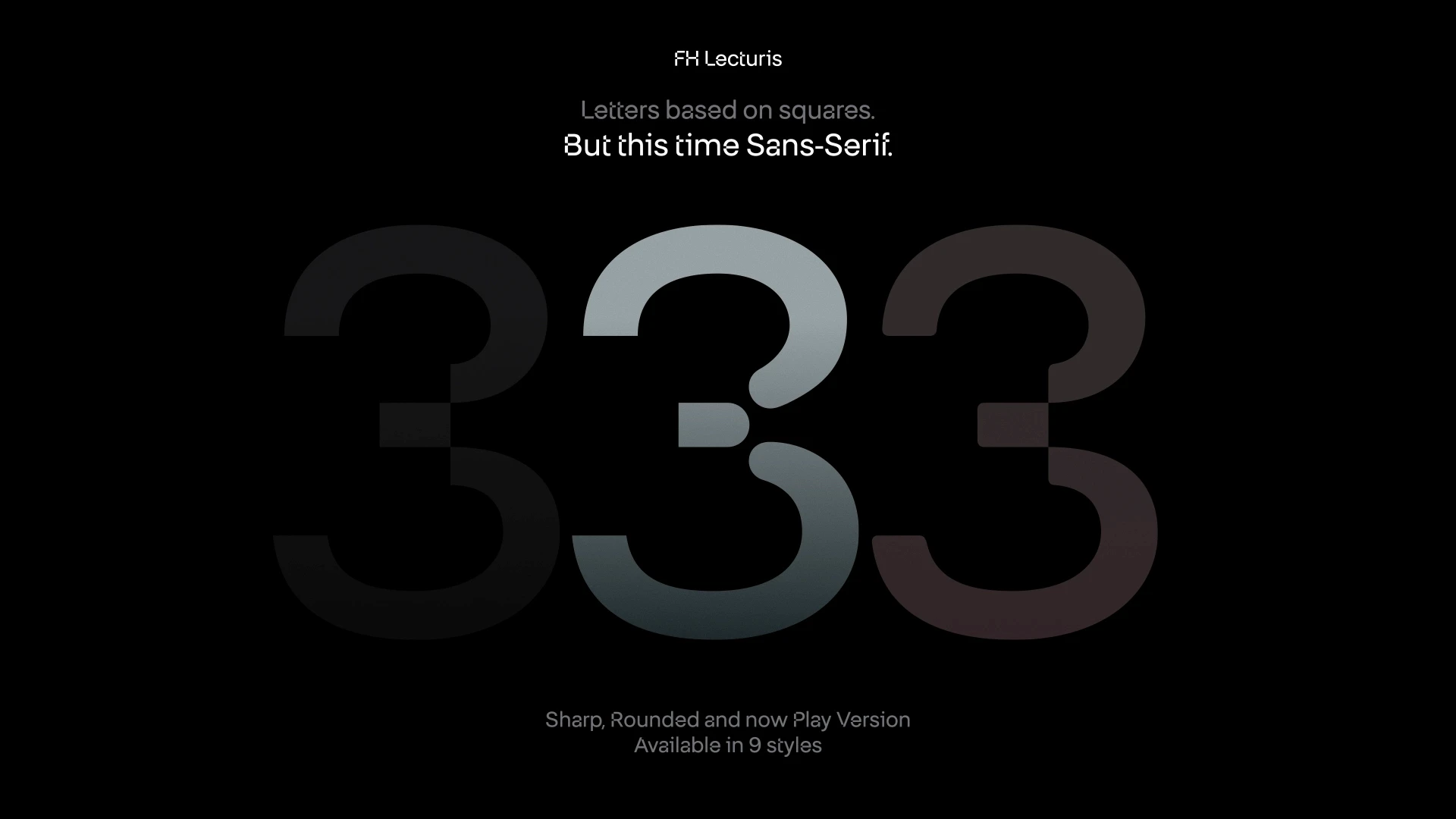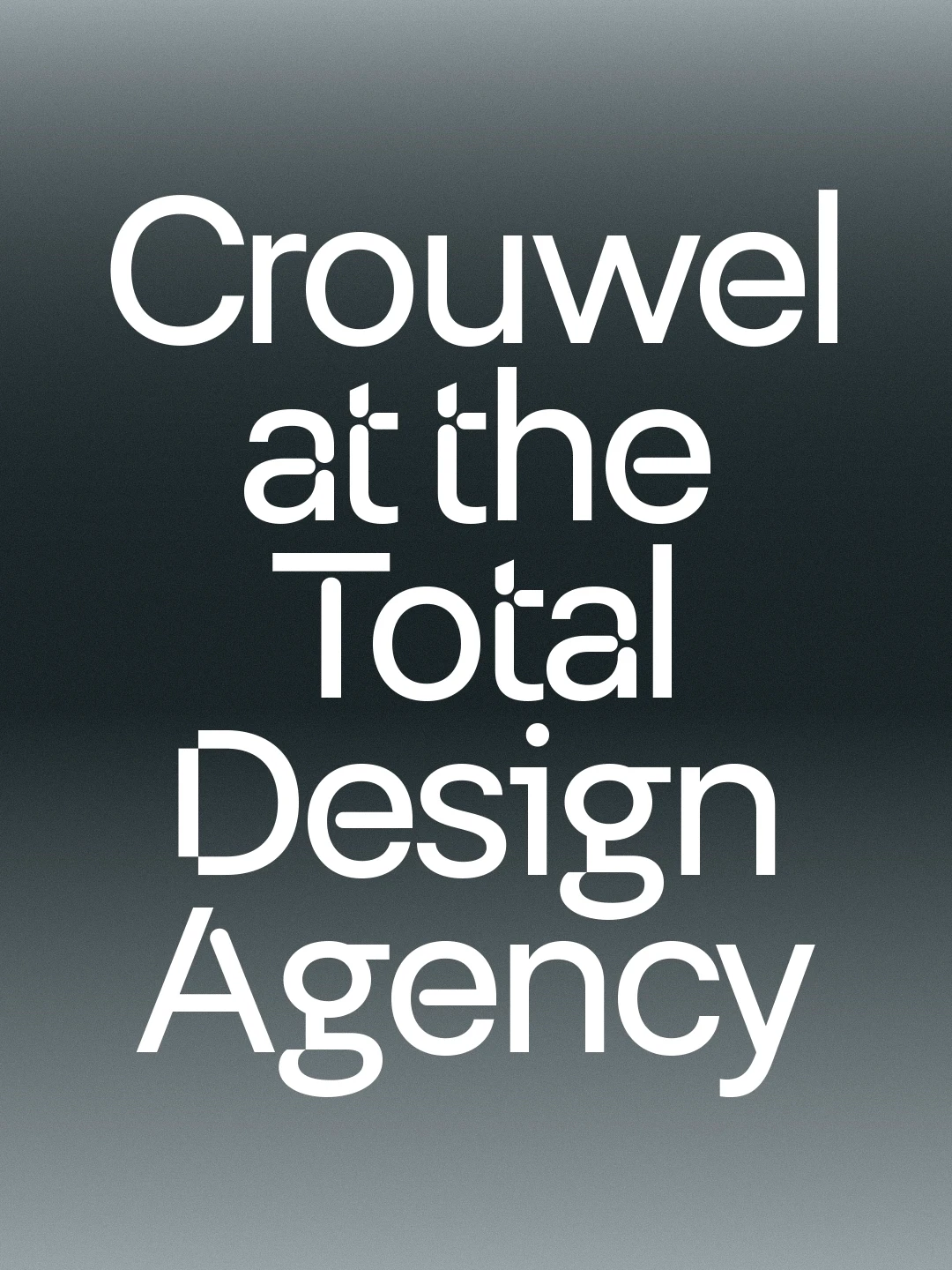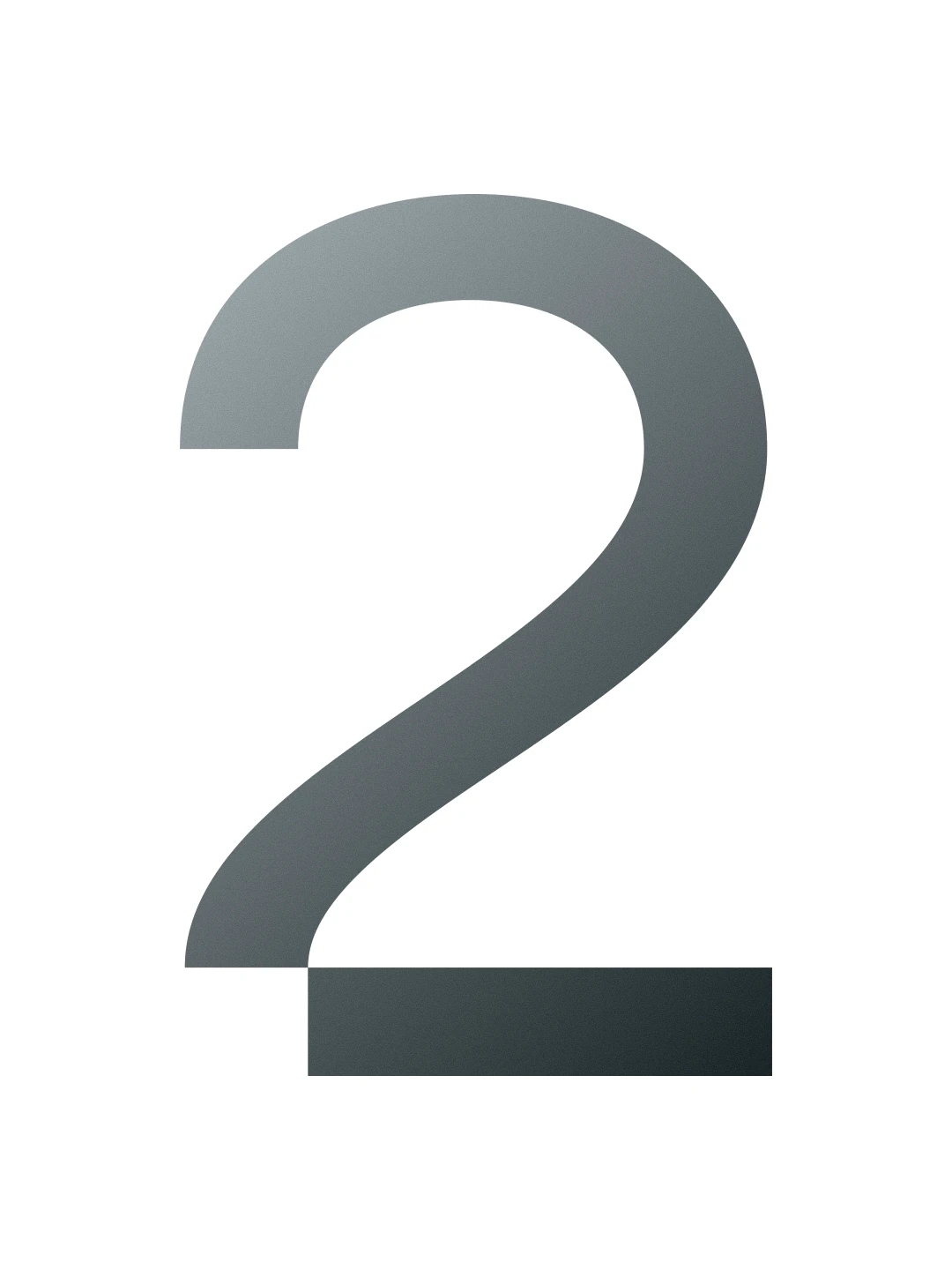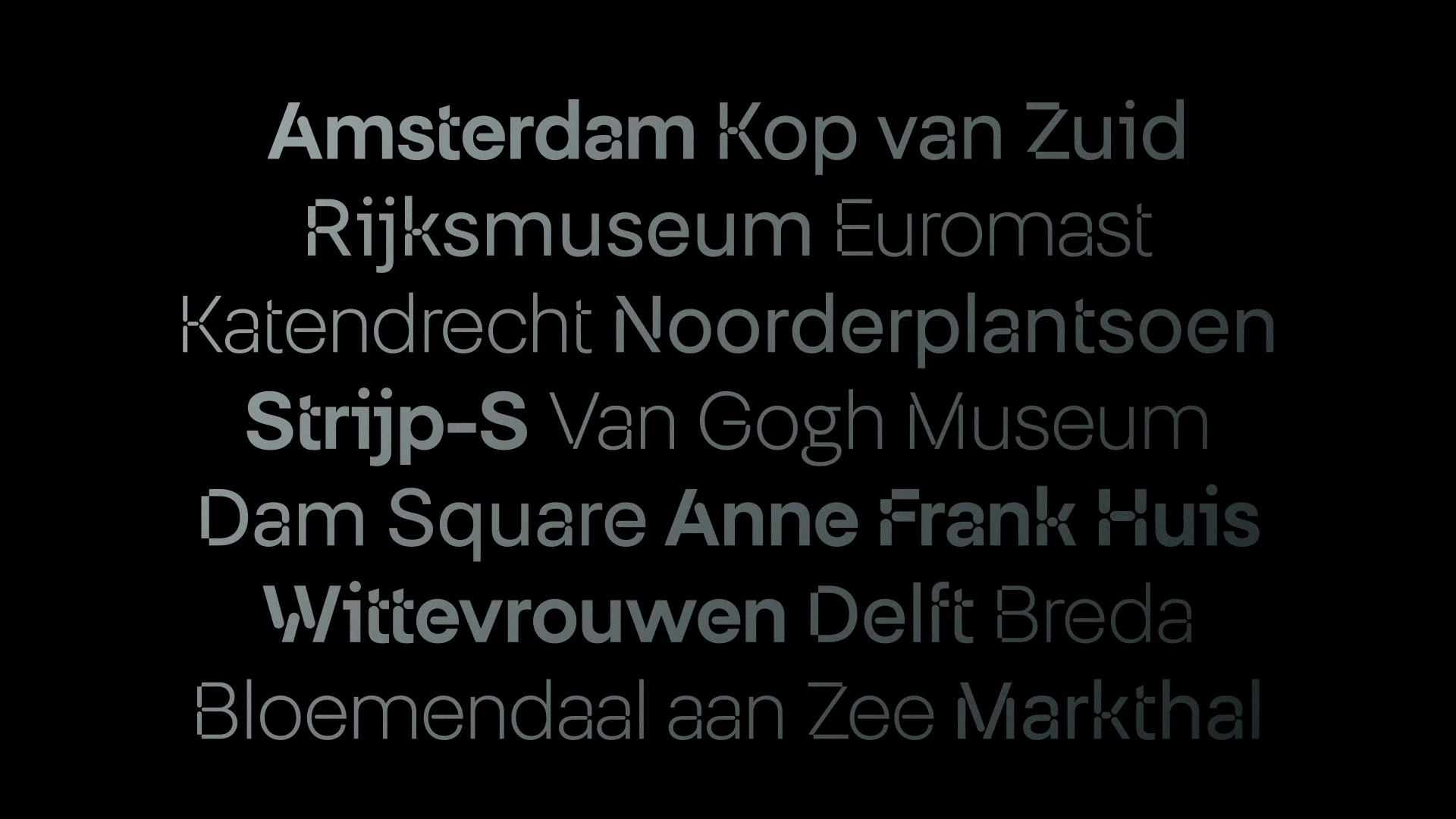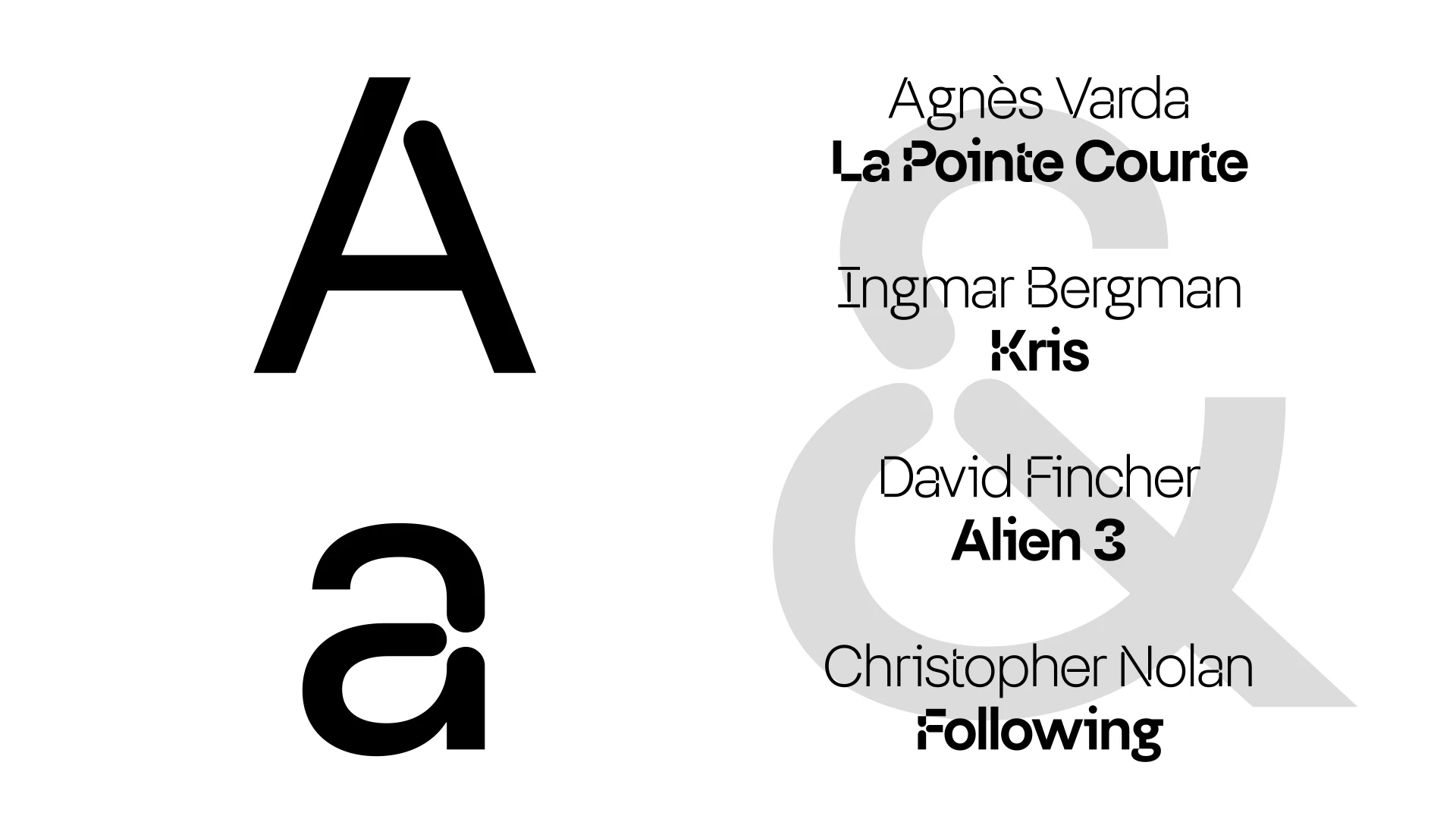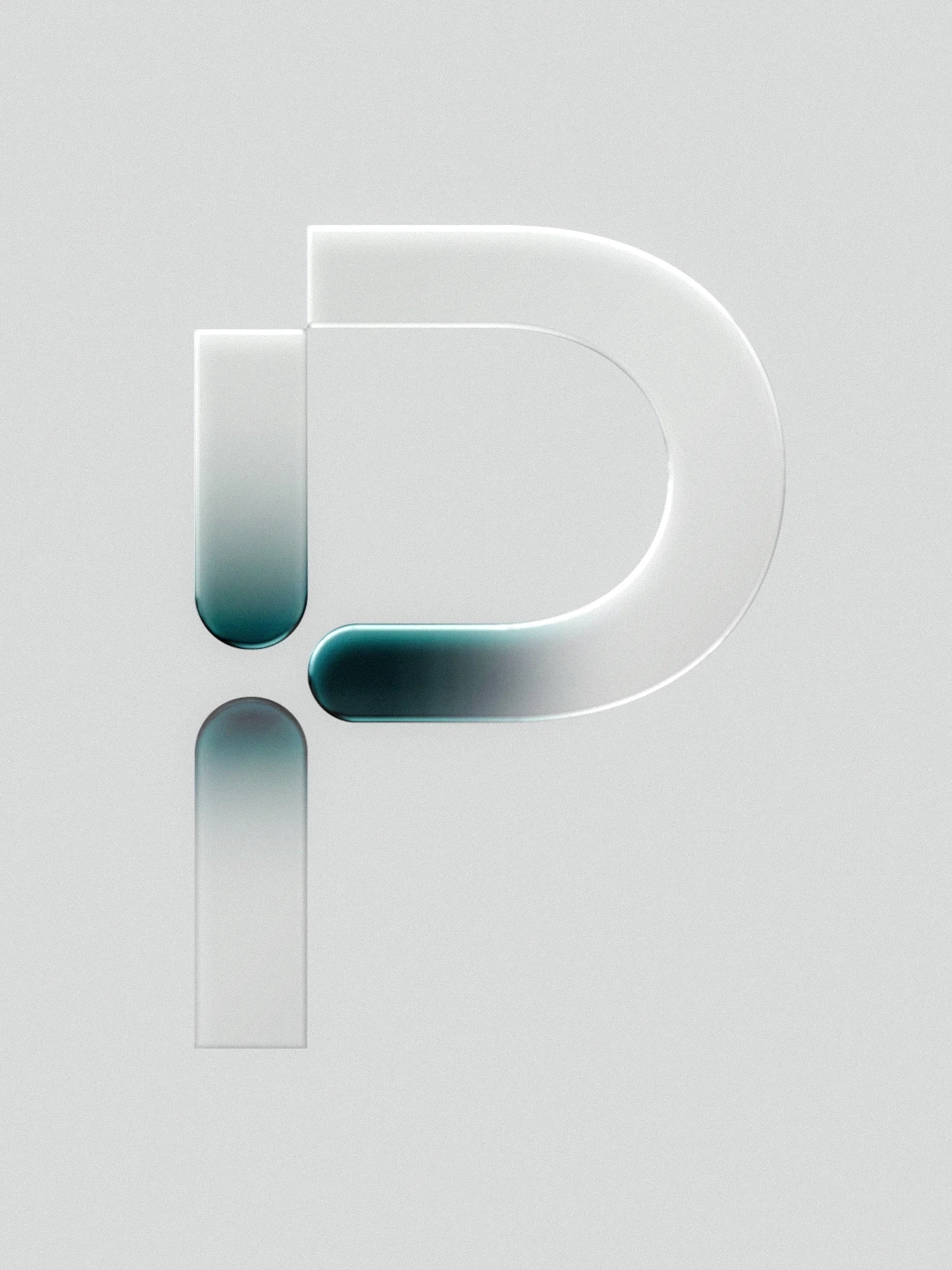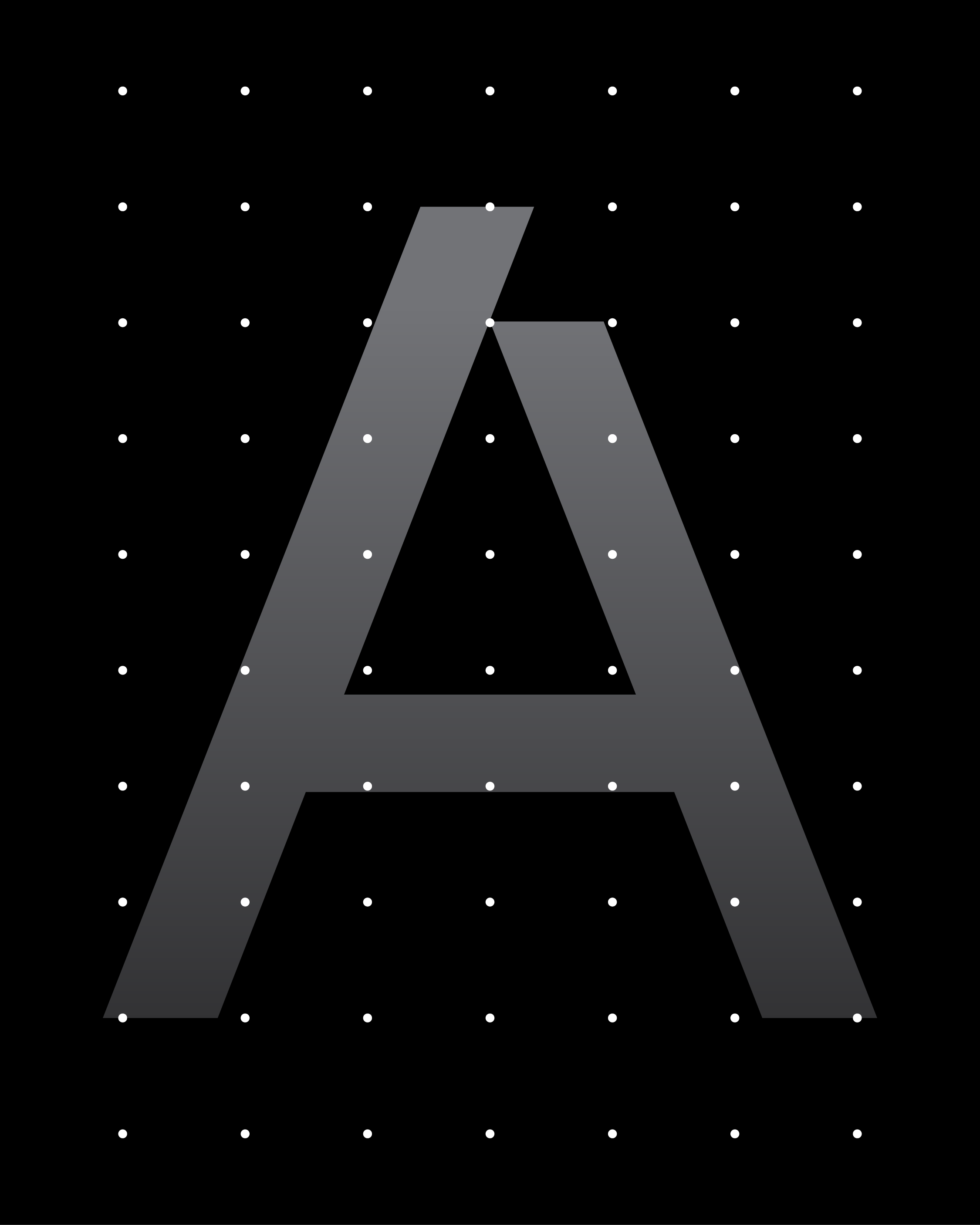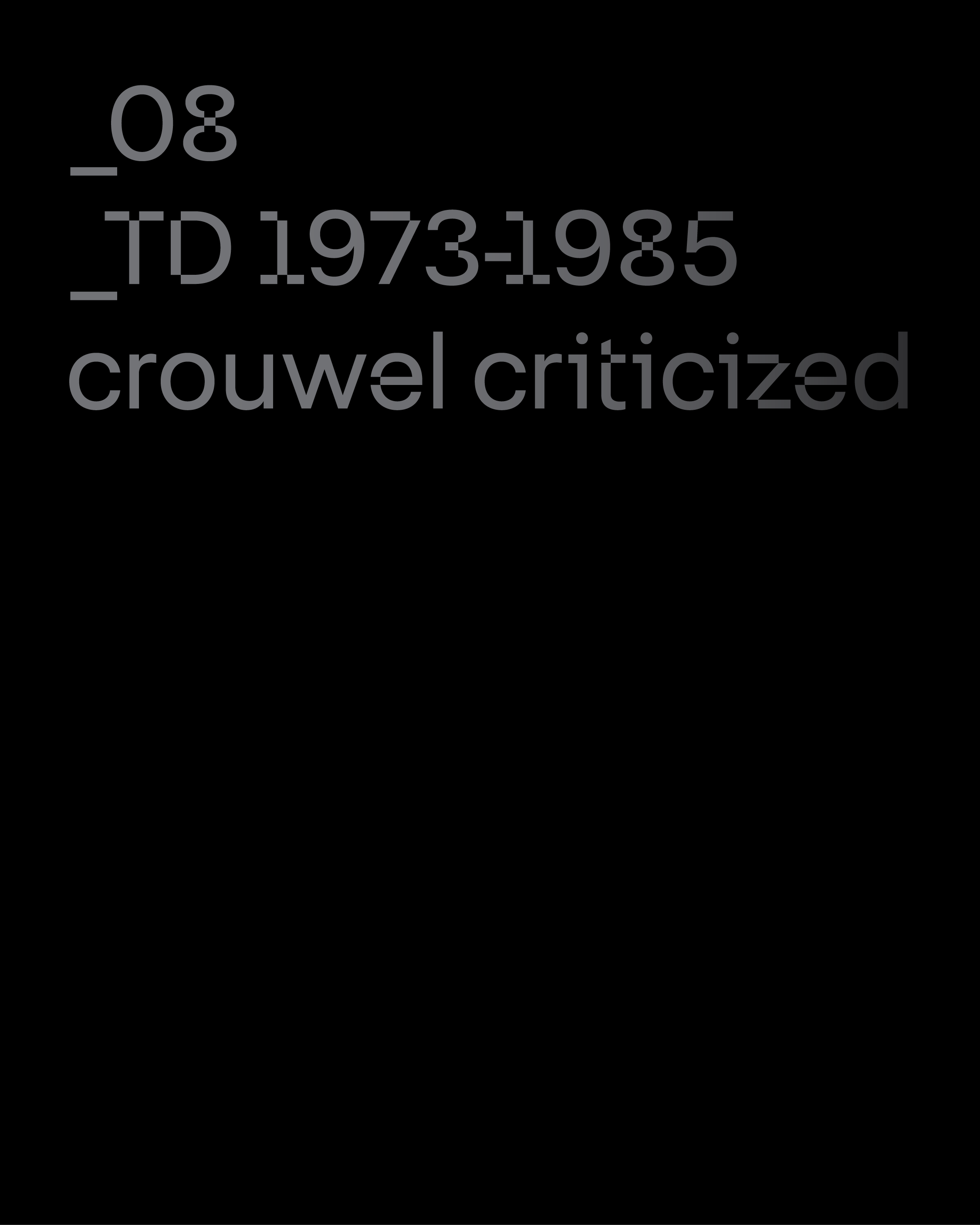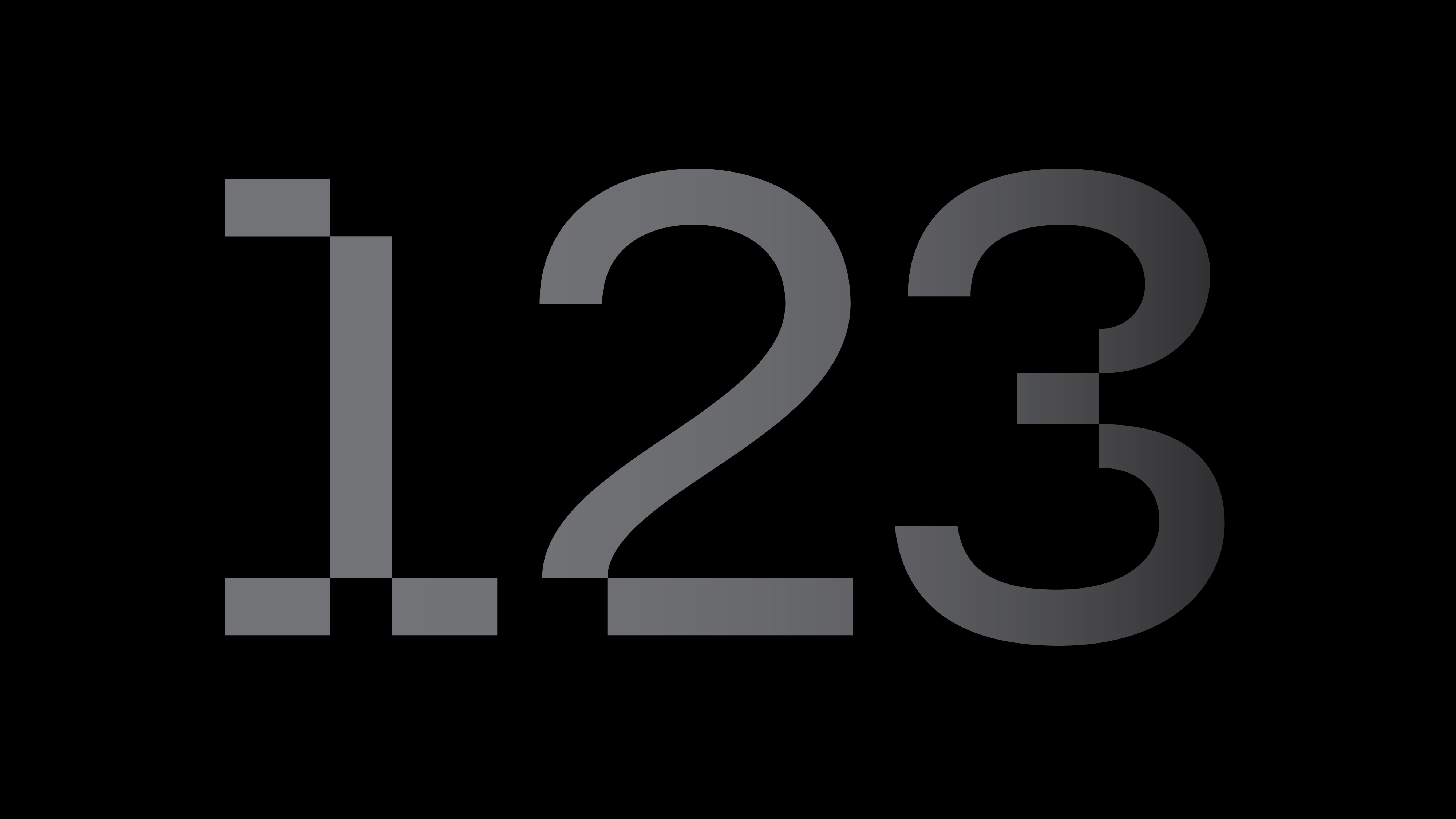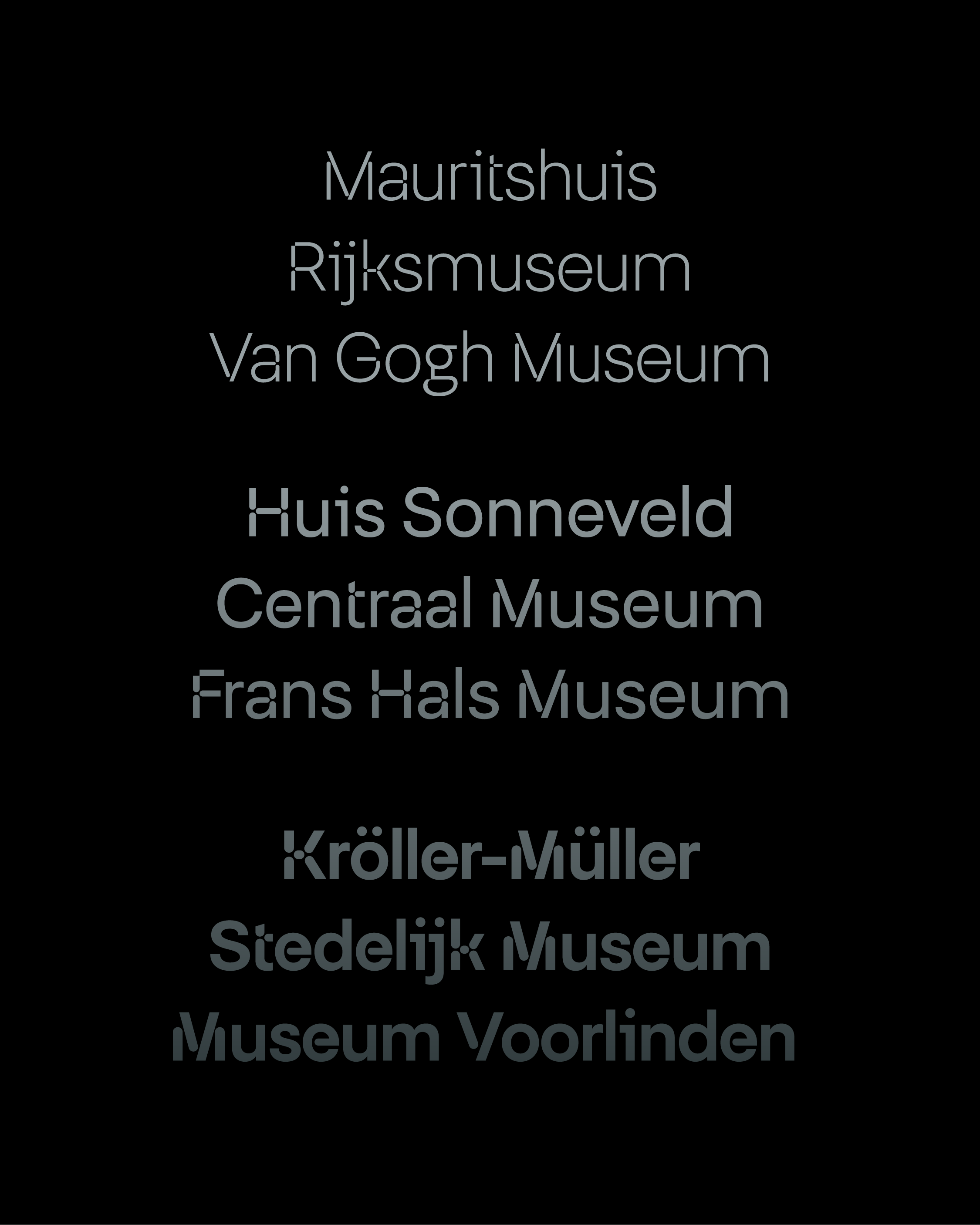
FH Lecturis is a neo-grotesk inspired by the rational grid systems of Wim Crouwel and the structural clarity of Akzidenz Grotesk. Drawn with modular precision, it softens its rigid core through rounded terminals and subtle optical adjustments. The result is a typeface that balances mechanical order with humanist warmth. Designed for editorial systems, institutional identities, and visual clarity at scale, FH Lecturis is where logic meets nuance.
Classification: Sans-serif / Modular Stencil
Wim Crouwel believed in structure, not decoration. For him, design was never about ornament or personal flourish, but about building clear systems that could organise information with precision. His work reduced visual noise to pure function, stripping away unnecessary elements to reveal the underlying logic of communication. Through carefully constructed grid systems, he brought discipline and order to the page. In doing so, he offered clarity in a chaotic visual world, demonstrating how typography and structure could guide the eye and stabilise complex information.
Crouwel’s approach reflected a broader Dutch tradition that valued clarity, order and rational thinking. Influenced by modernist principles and the legacy of De Stijl, he treated design as a structured system rather than an expressive gesture. Typography, in this context, became a precise instrument for communication. Every element letters, spacing and alignment was positioned with intention, allowing information to unfold with rhythm and balance across the page.
This philosophy reached its most radical expression in Crouwel’s experimental work. Projects such as the New Alphabet pushed the limits of legibility, questioning how far a system could define the form of letters themselves. Even in these explorations, structure remained central. Geometry, grids and modular logic shaped every decision, revealing how design could function both as a tool for communication and as a reflection of technological culture.